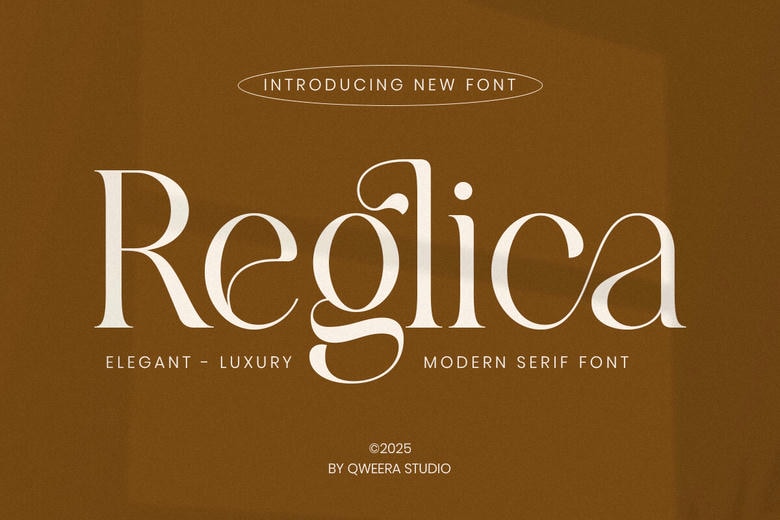
Reglica Font
Reglica Font is a contemporary graceful serif that is created with a sophisticated contrast and elegant curves. The typeface is a luxury typeface that is perfect in branding, editorial layouts, fashion logos, and boutique identity systems.
Reglica offers high-quality typography with balanced proportions and advanced styling, which can be used in the modern luxury design. Ideal when designing a beautiful branding and a sleek editorial layout.
Reglica Serif Font